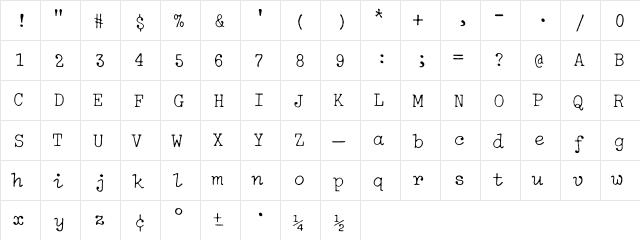
IBM Selectric Light Regular
| Designer | Aleksandar Stevanov |
Design Context for IBM Selectric Light Typeface
IBM Selectric Light channels digital-age aesthetics through its sharp, structured letterforms — ideal for brands that want to signal innovation. Its slender proportions lend an understated elegance to any composition.